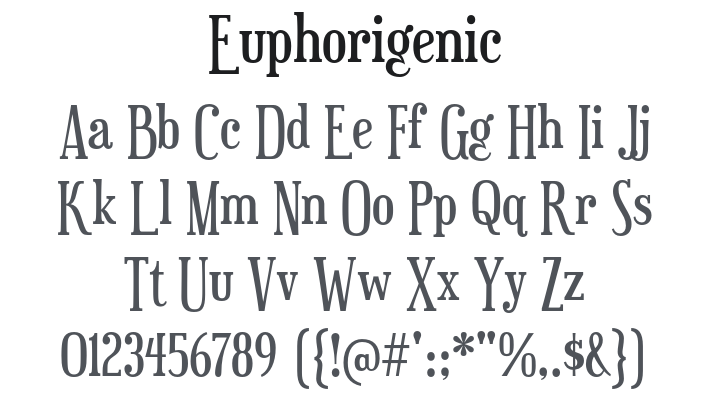
Euphorigenic Font
About Euphorigenic
Euphorigenic is a fun, handcrafted serif headline typeface with chunky, slightly uneven letterforms that feel warmly hand-drawn rather than mechanically precise. Its casual, one-of-a-kind character gives text a relaxed, approachable personality with a hint of retro charm. Great for lifestyle branding, editorial headlines, food packaging, greeting cards, and any design needing a friendly, laid-back confidence.